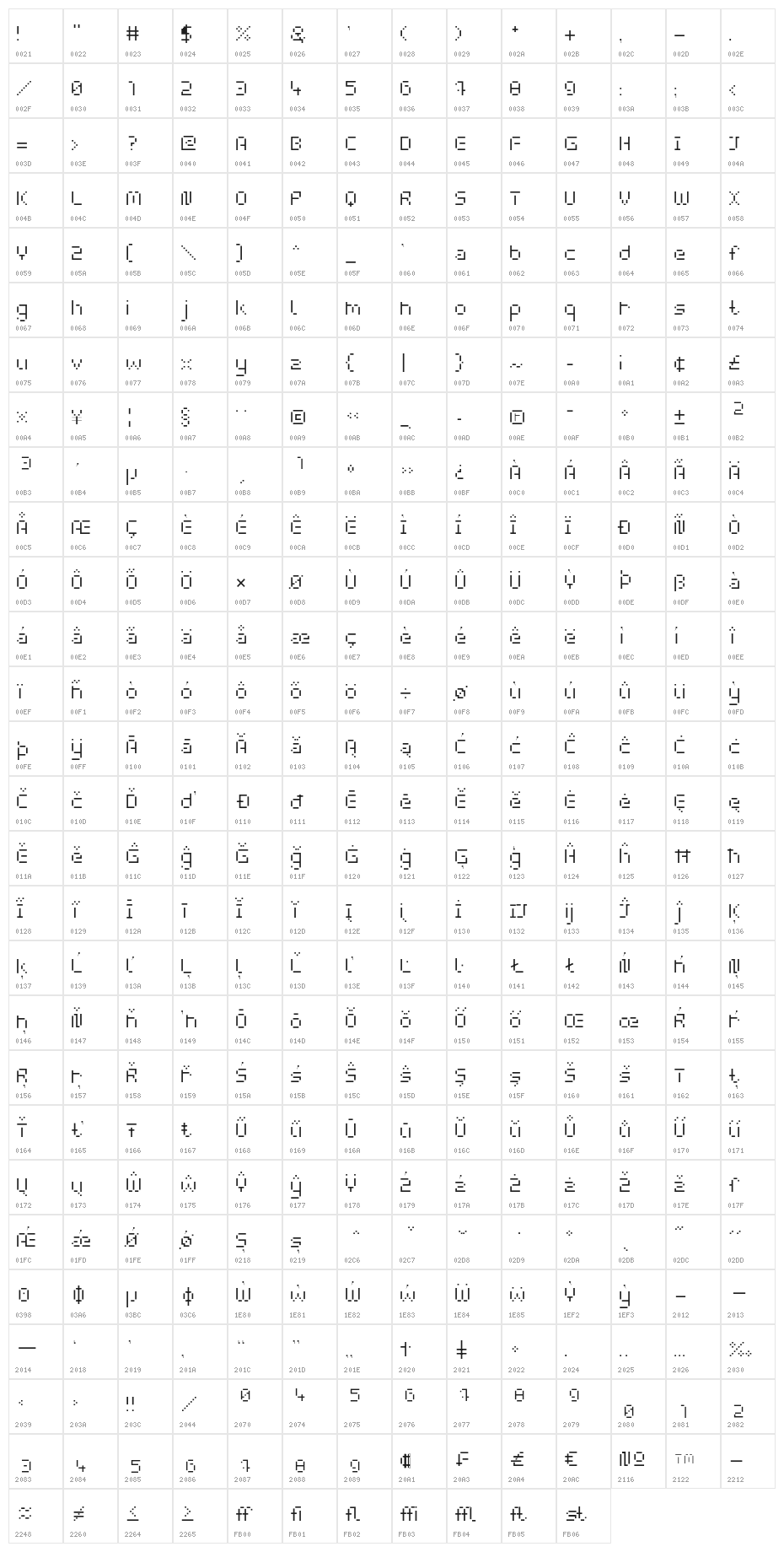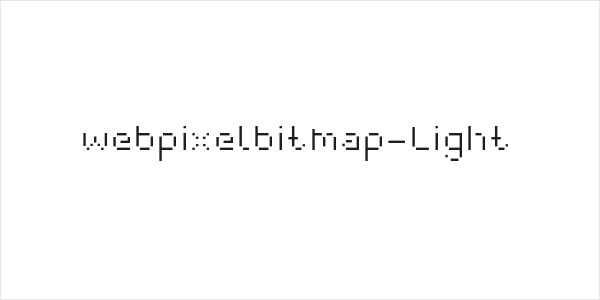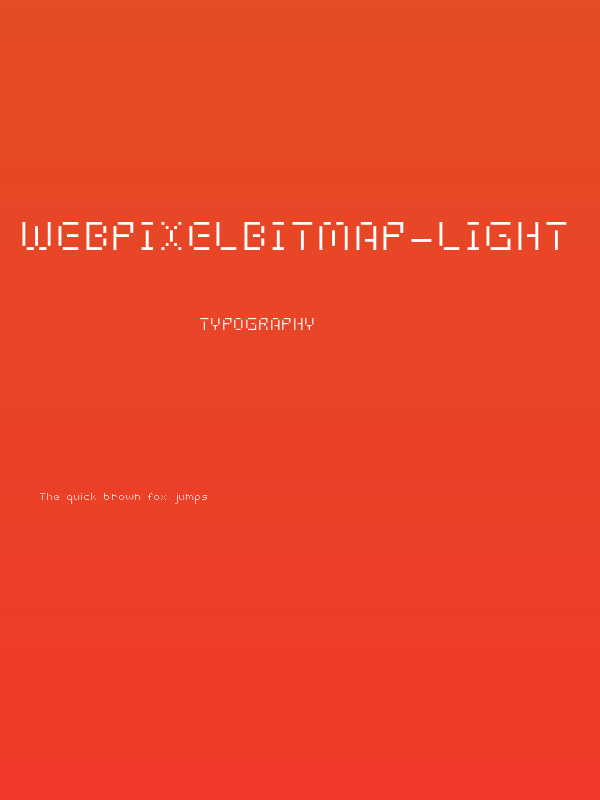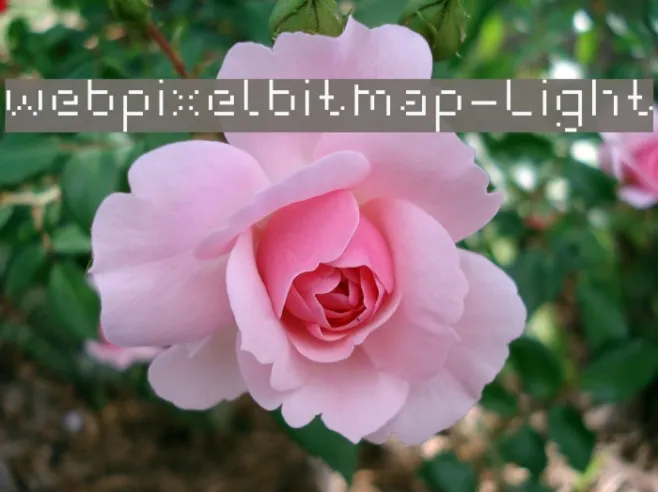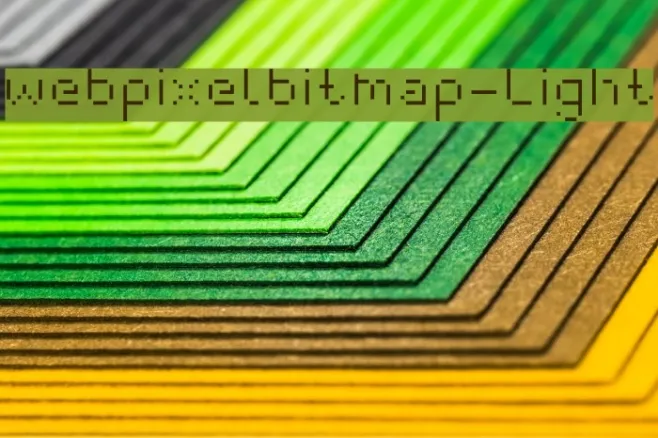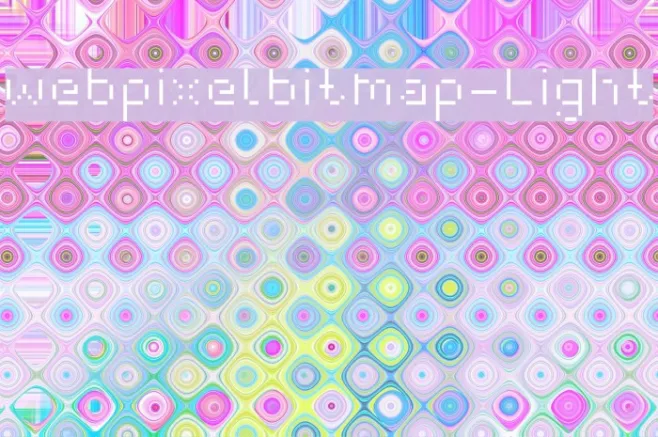
webpixelbitmap-Light Font
webpixelbitmap-Light Description
This font features a pixelated, bitmap style that is reminiscent of early digital displays and retro video games. Each character is constructed with a grid-like precision, giving it a distinctly digital aesthetic. The uppercase and lowercase letters maintain a uniform height, contributing to a cohesive and structured appearance. The numbers and special characters follow the same pixelated design, ensuring consistency across all glyphs. This font's simplicity and clarity make it highly legible, even at smaller sizes. Its nostalgic charm is perfect for projects that aim to evoke a sense of retro technology or digital nostalgia.
| Use Case | Headlines, Logos, Digital Art |
| Proposed Projects | Ideal for retro video game designs, digital art projects, tech-themed posters, and any creative work that seeks to capture a vintage digital feel. |